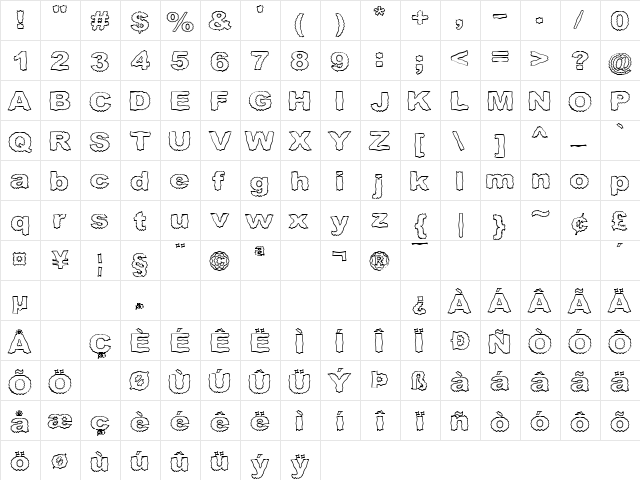
Roughhewn Outline Regular
Design Context for Roughhewn Outline Typeface
Roughhewn Outline embraces imperfection — its rough, textured character adds raw authenticity to designs that want to feel lived-in and unconventional.
Suited to punk-influenced zines, underground music branding, streetwear, and raw, anti-corporate design.
Pro Tip: Pair Roughhewn Outline with intentionally raw or lo-fi design elements. Fighting against it with overly polished surroundings will undermine its personality.